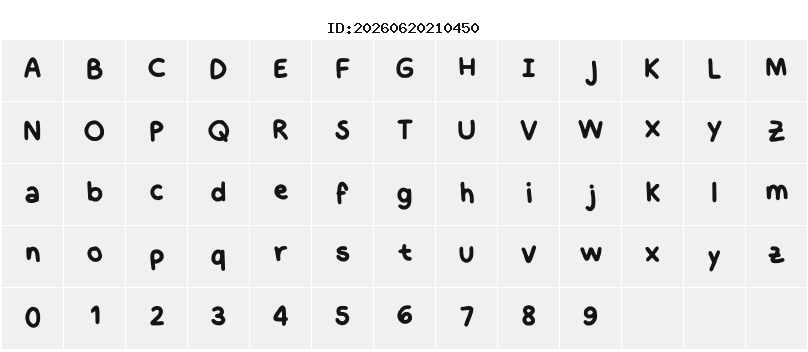
Fafo Sans Preview
• Font Name: Fafo Sans
• Full Font Name: Fafo Sans Bold
• Designer: Fafo Ferrao
• Manufacturer: Fafo Ferrao
• Description: Handmade font made in Procreate with the brush Narinder Pencil.
About Fafo Sans.ttf
Fafo Sans.ttf is a modern, elegant sans-serif font designed for ultimate readability and visual harmony. Perfect for branding, headlines, web design, and print materials.